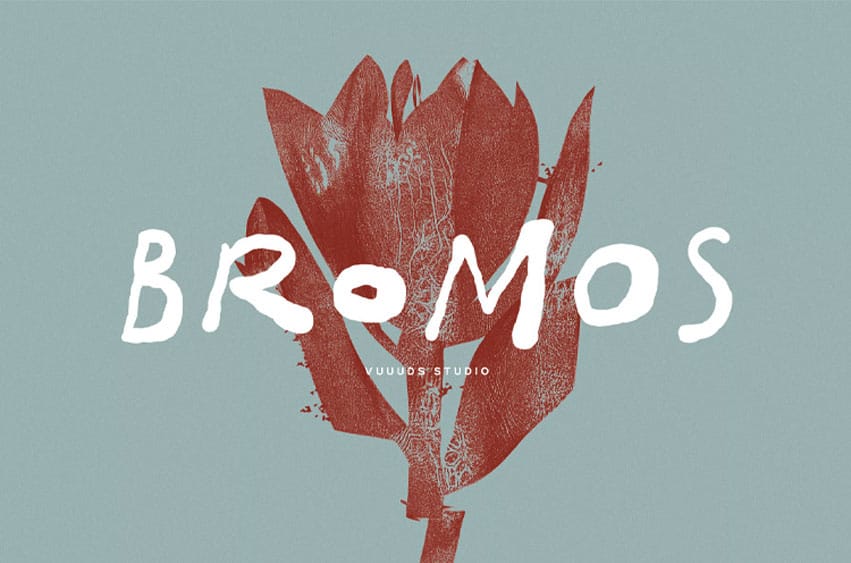
Bromos Font is unique brush grunge font, every single letters have been uniquely crafted. This font including beautiful alternate glyph. You can access the alternate glyph via Font Book (Mac user) or Windows Character Map (Windows user).
Multi languages support: ÀÁÂÃÄÅĂÆÇÈÉÊËÌÍÎÏÐÑÒÓÔÕÖØÙÚÛÜŸÝ àáâãäåăæçèéêëìíîïðñòóôõöøùúûüýÿ